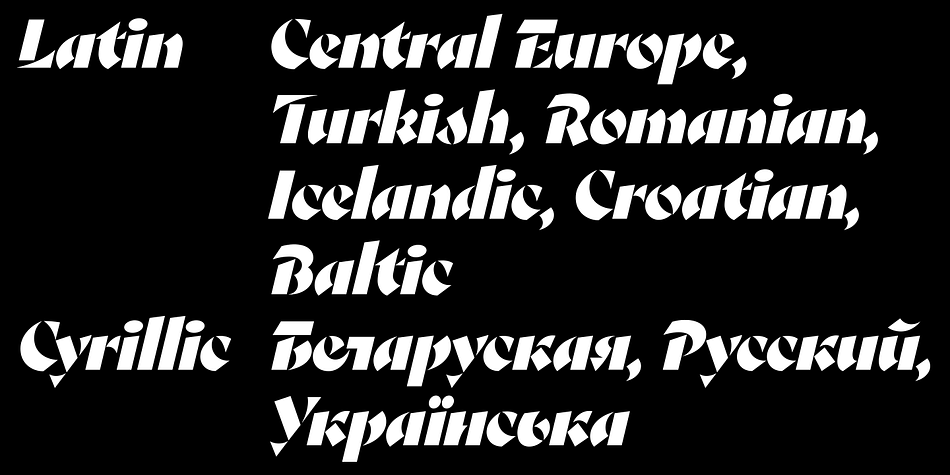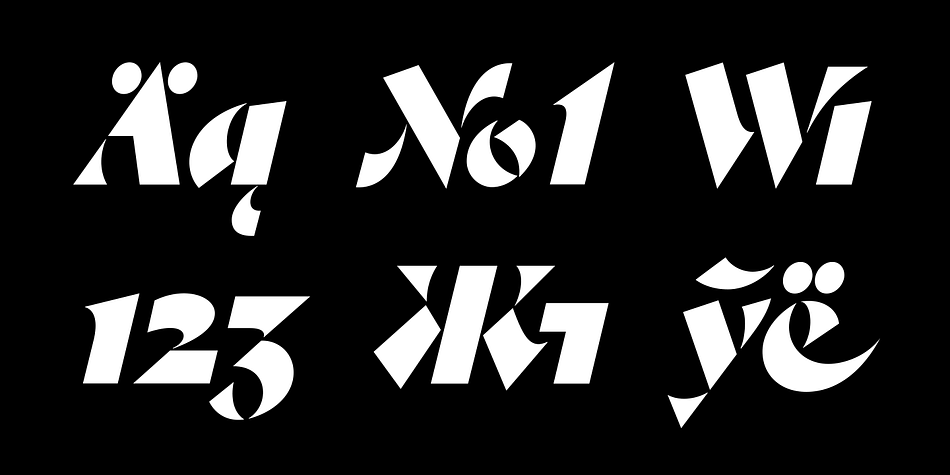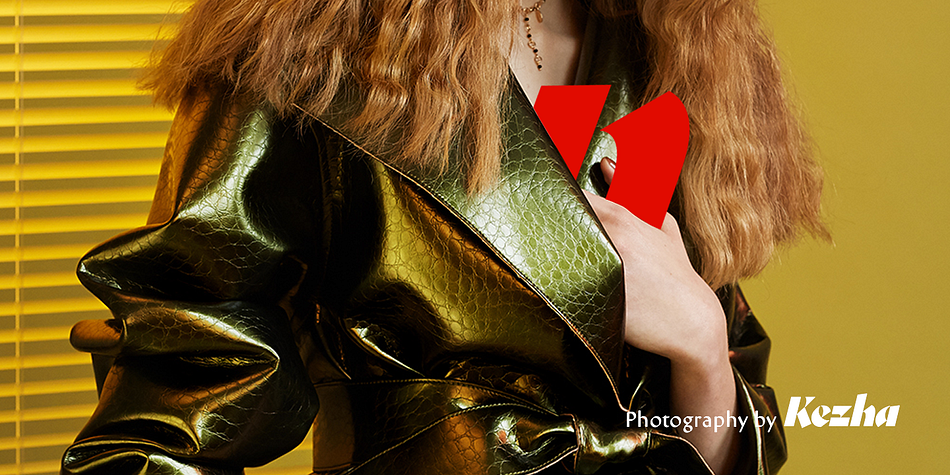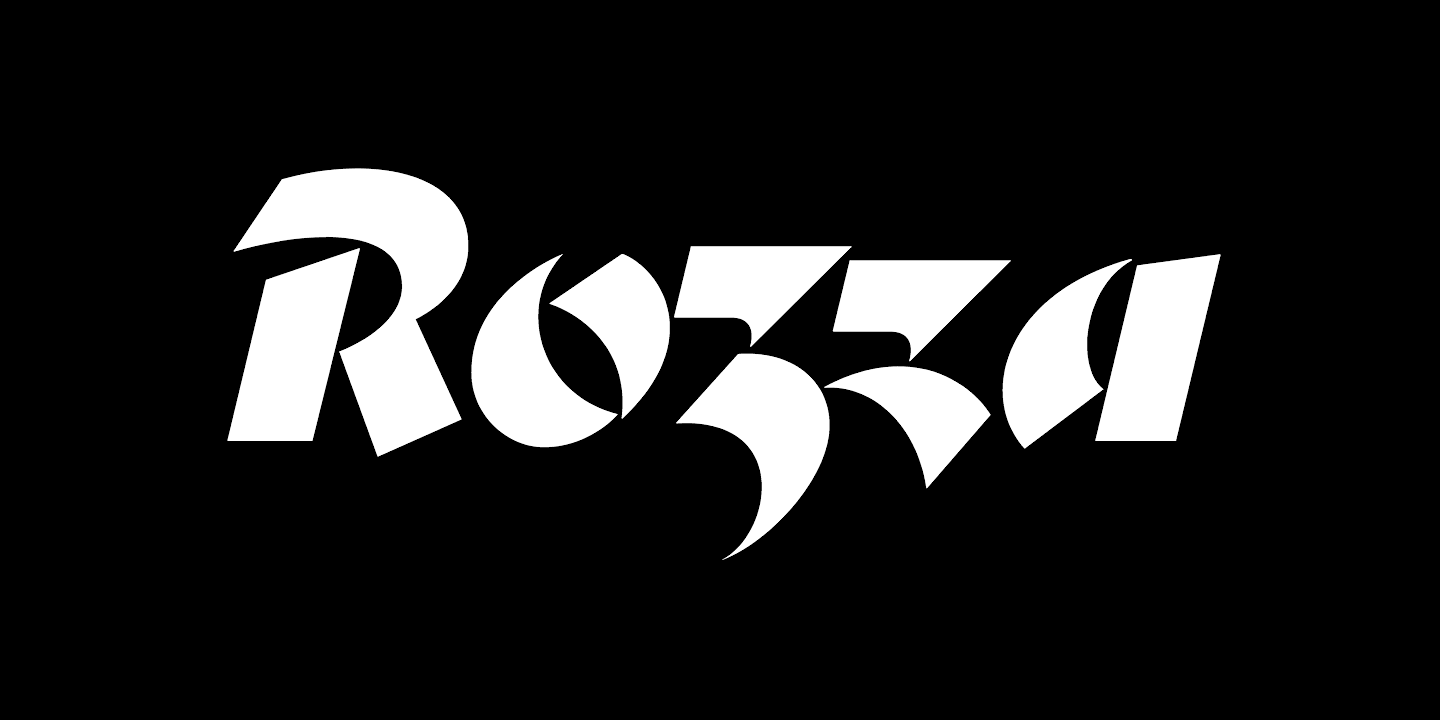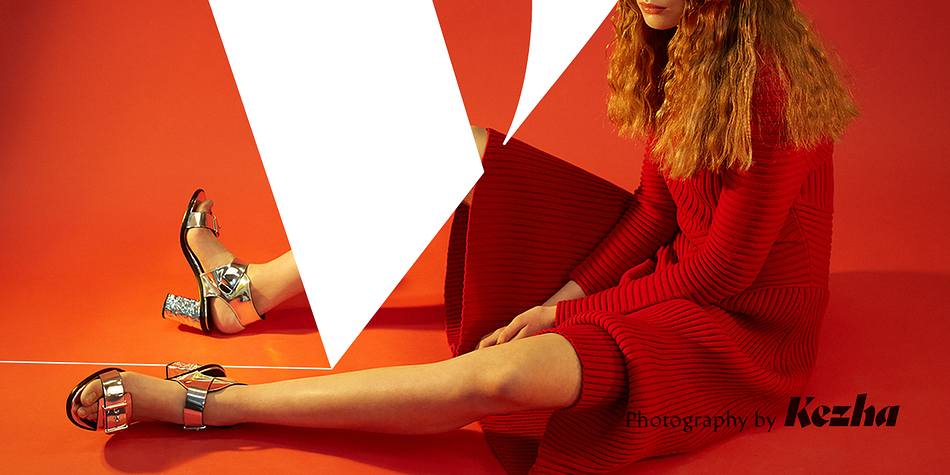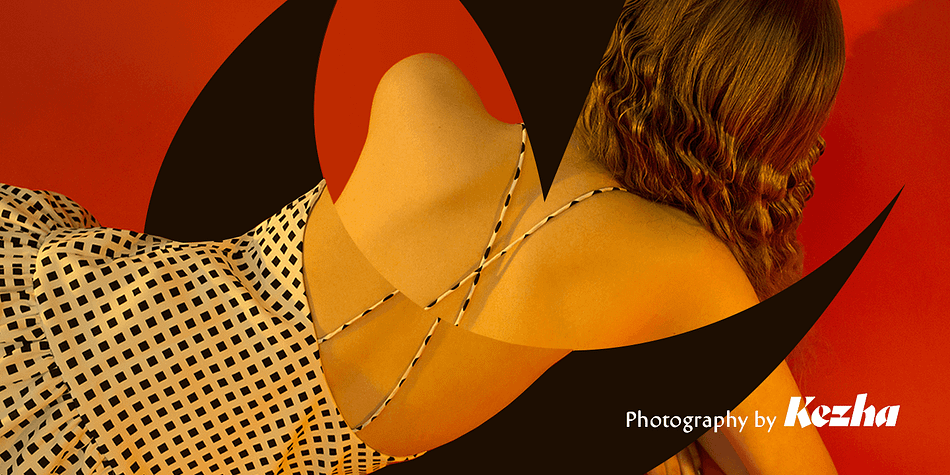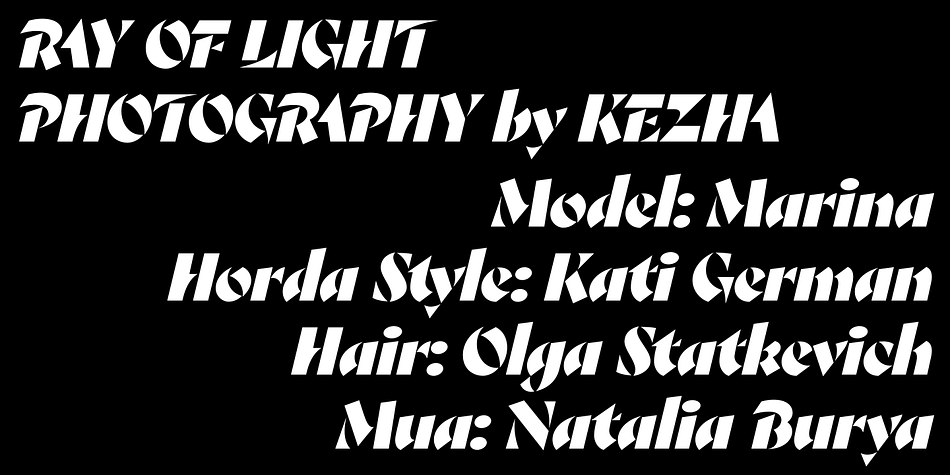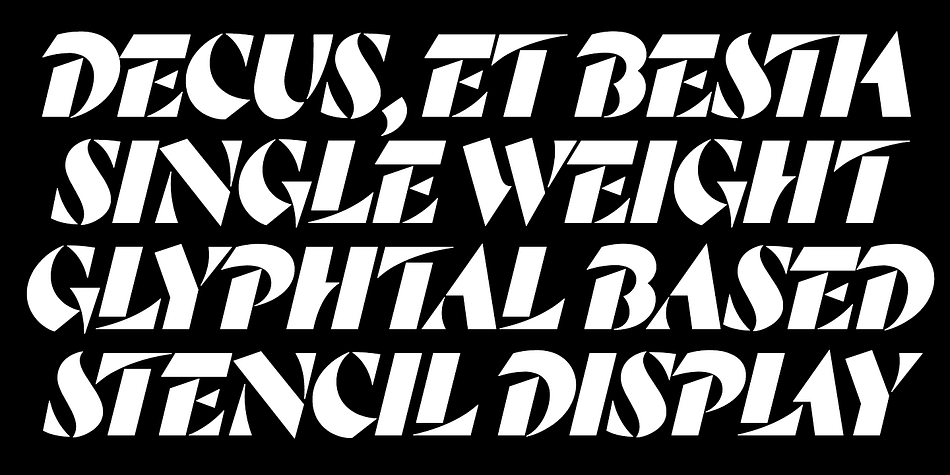
Rozza
Designed by Denis Serebryakov, Rozza is a display sans and stencil font published by DSGN Fonts.
Rozza is a single weight stencil cursive fat face font for extremal display use. Looking at this font the story of beauty and the beast comes to mind. That is how I would describe it. On the one hand prickly and dangerous, and on the other - pulsating beauty and passion.